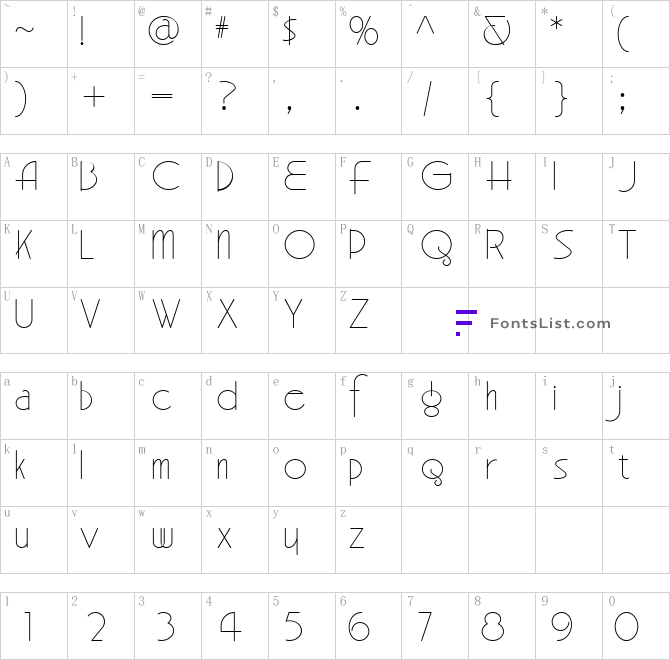
- Font Name:BeckerMonolineModernNF
- Subfamily:ExtraLight
- Subfamily:Nick'sFonts: BeckerMonolineModernNF ExtraLight: 2003
- Full Name:BeckerMonolineModernNF ExtraLight
BeckerMonolineModernNF-ExtraLight.ttf is a very beautiful artistic font, BeckerMonolineModernNF-ExtraLight.ttf is widely used in the design and printing of various books and pictures,BeckerMonolineModernNF-ExtraLight.ttf has a strong visual impact,BeckerMonolineModernNF-ExtraLight.ttf is a commonly used font in newspapers, magazines and books, and is used in posters, e-commerce Poster design, store design, logo design, font design and other fields.BeckerMonolineModernNF-ExtraLight.